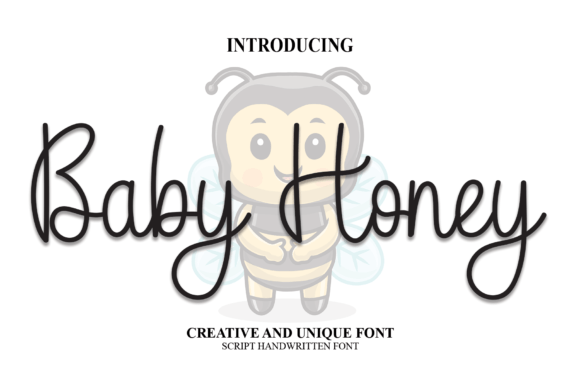
Adding a Touch of Whimsy: The Magic of Baby Honey Font
Do you ever find yourself staring at a blank page, desperately searching for the perfect words to express your creativity? I know I do! It’s those moments when the right font can make all the difference. For me, it’s like stumbling upon a hidden treasure trove of inspiration – and that’s exactly what happened when I discovered the Baby Honey Font.
With its sweet and friendly handwritten style, Baby Honey Font is the perfect companion for designers looking to add a joyful touch to their projects. Whether you’re crafting wedding invitations, designing cards, or working on any other creative endeavor, this font is sure to bring a smile to your face. Its relaxed and fun vibe makes it an invaluable asset for any designer seeking to add a personal touch to their work.
• Unique Characteristics: Unique, hand-drawn style with a mix of modern and vintage elements, perfect for creating a unique and eye-catching design
Baby Honey Font Review
Overall, I have mixed feelings about the Baby Honey Font. Here’s a breakdown of what works and what doesn’t.
• Cute and playful design – perfect for children’s products, nursery decor, or any other project that needs a sweet touch.
• Unique and creative – the font stands out from the crowd and can add a personal touch to your designs.
• Good legibility – despite its playful nature, the font is still easy to read, making it suitable for text-heavy projects.
• May not be suitable for formal or professional projects – the font’s playful nature may not be fitting for corporate or business-related designs.
• Limited customization options – the font may not be as versatile as other fonts in terms of size, color, and style adjustments.
• May not be ideal for large blocks of text – the font’s design can make it difficult to read large amounts of text, which may be a limitation for publications or articles.
The Baby Honey Font is a great choice for designers looking for a unique and playful touch in their projects. While it may have some limitations, its cute and creative design makes it a great fit for the right type of project. Just be mindful of its limitations and use it in contexts where it will shine.
The Baby Honey Font is perfect for:
• Children’s birthday invitations and party decorations.
• Baby shower invitations and decorations.
• Family photo albums and scrapbooks.